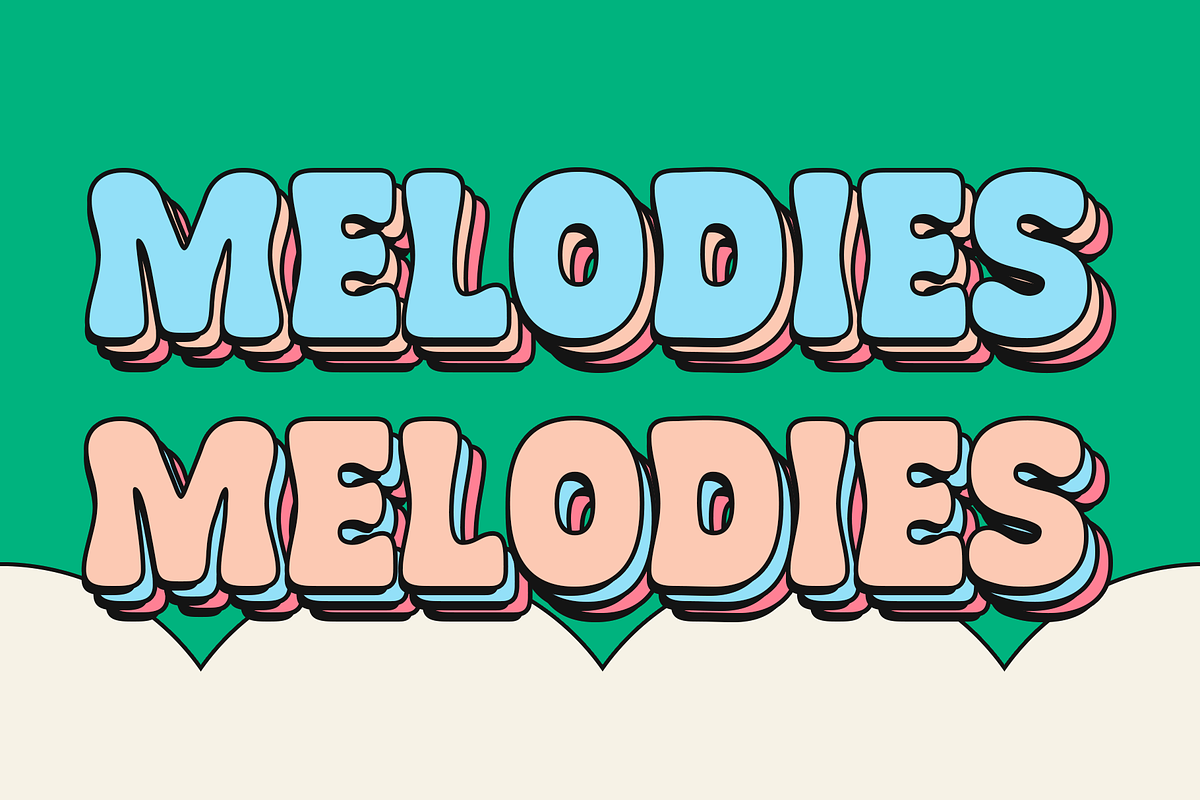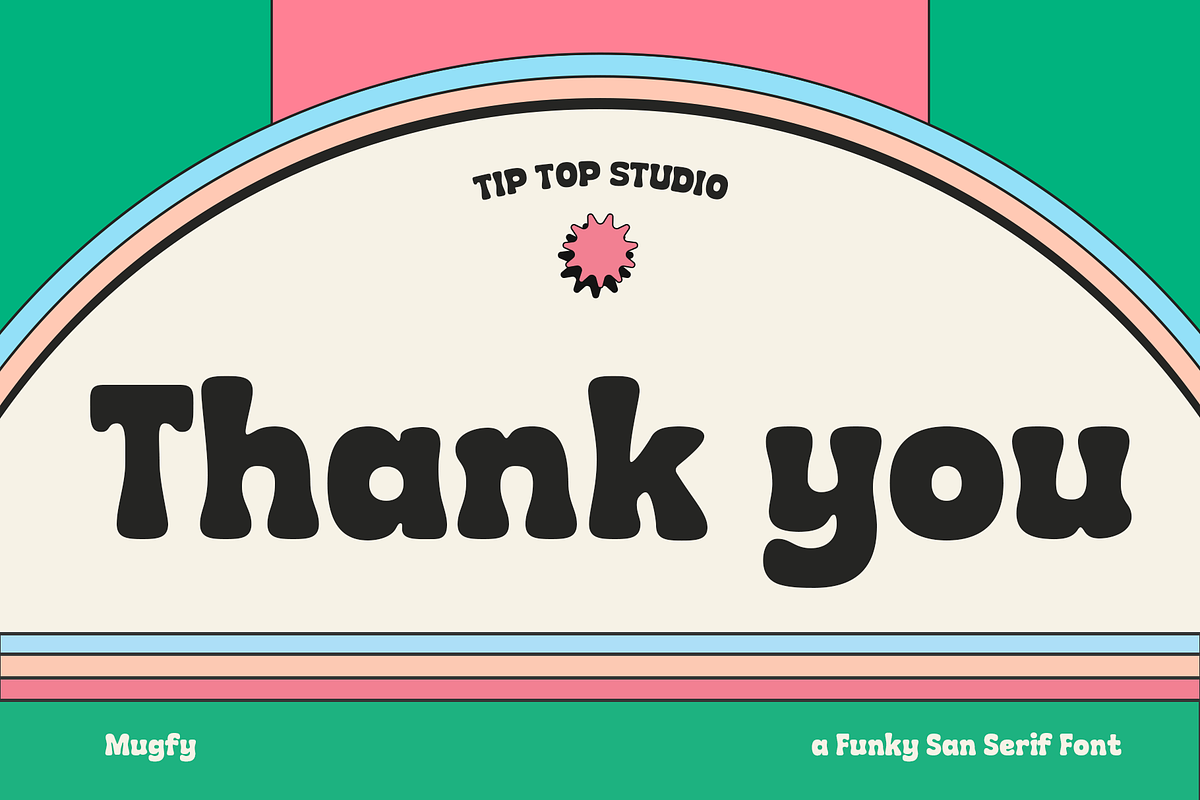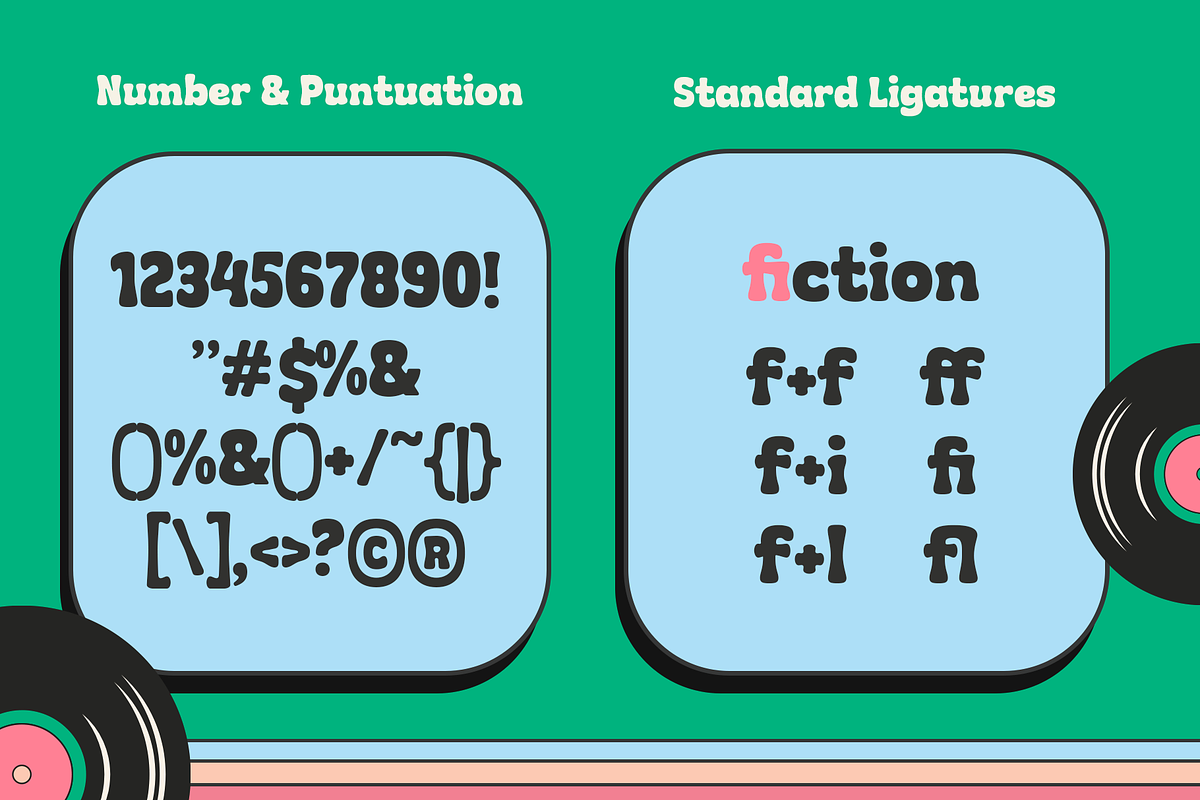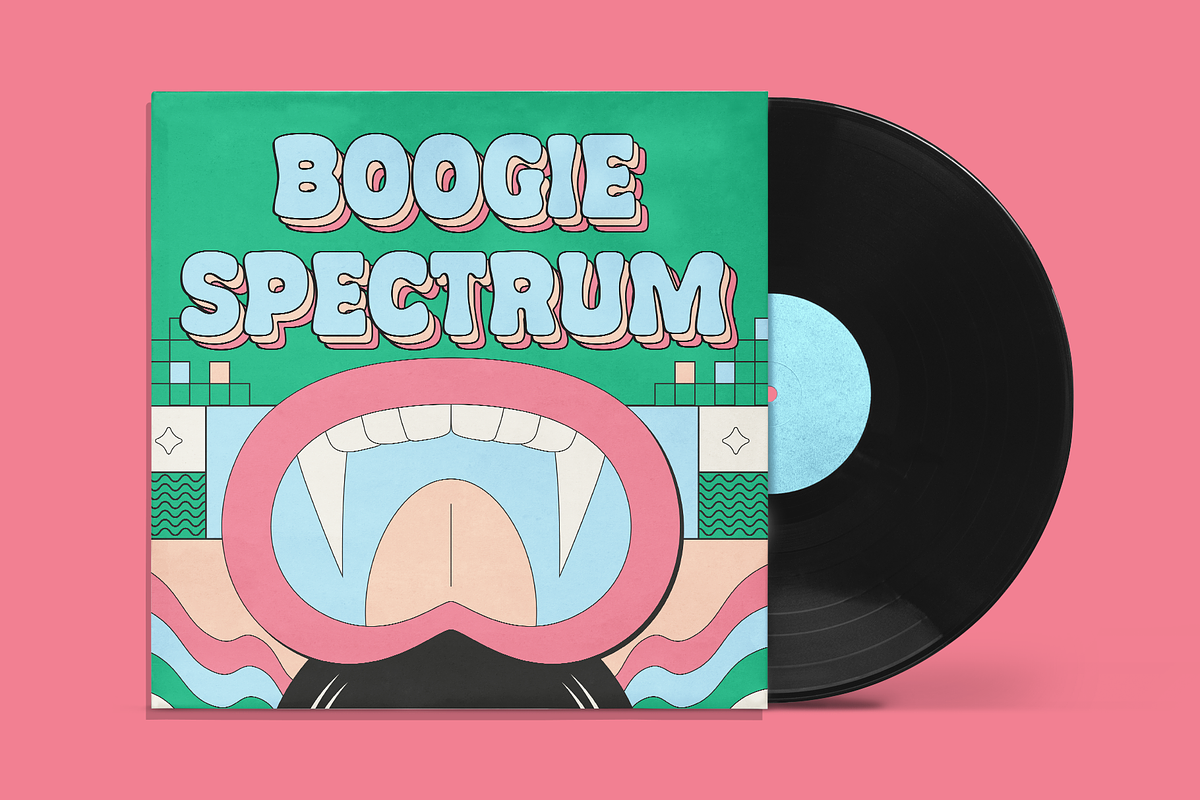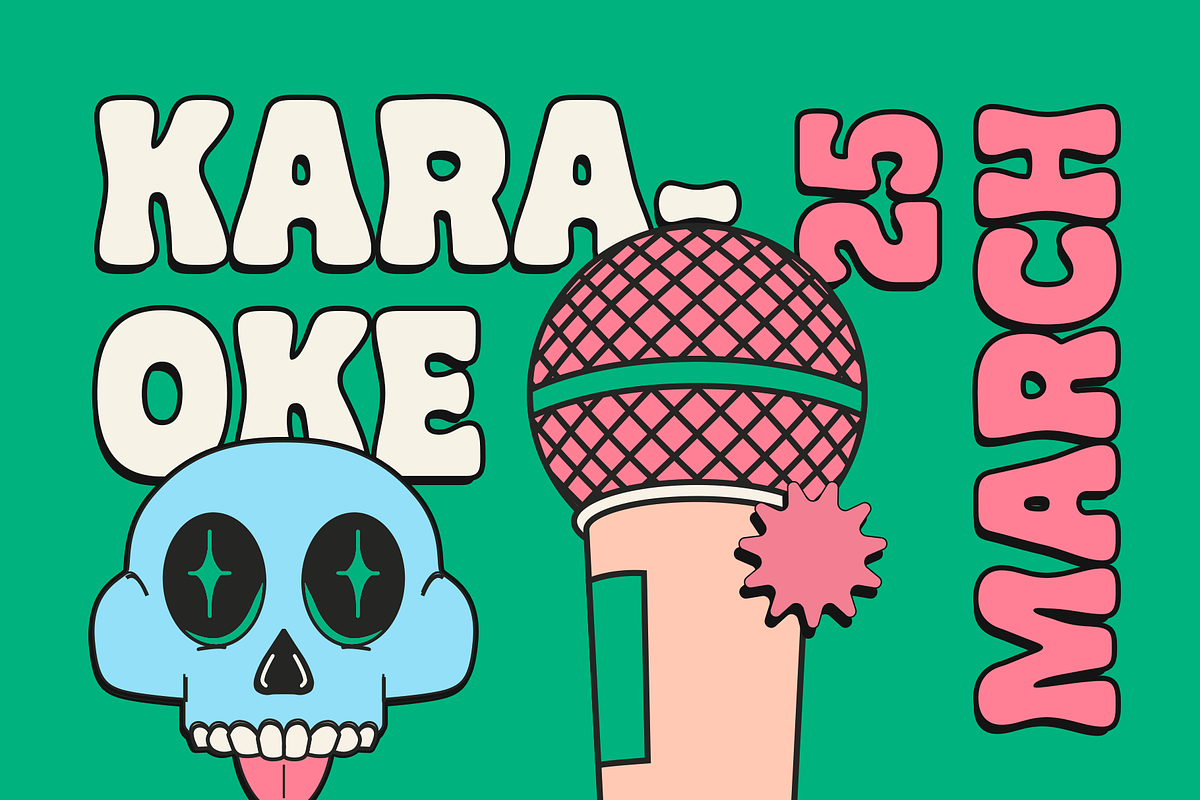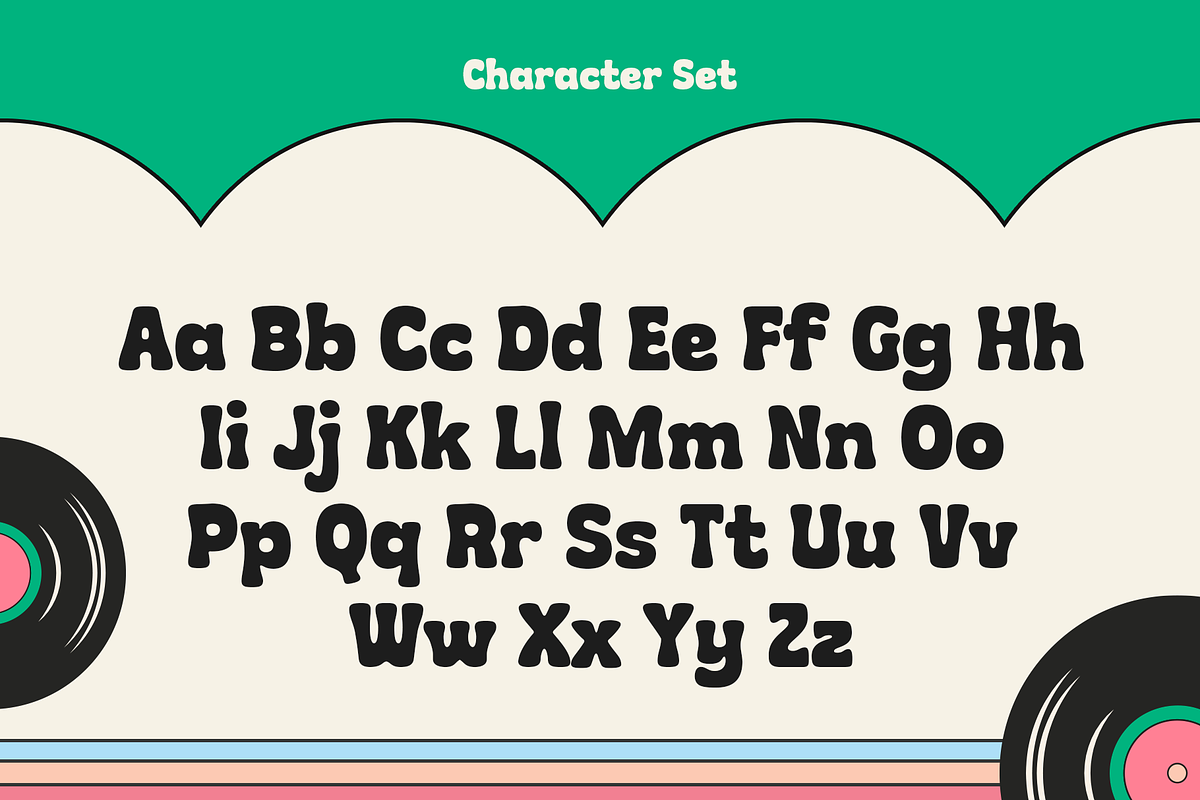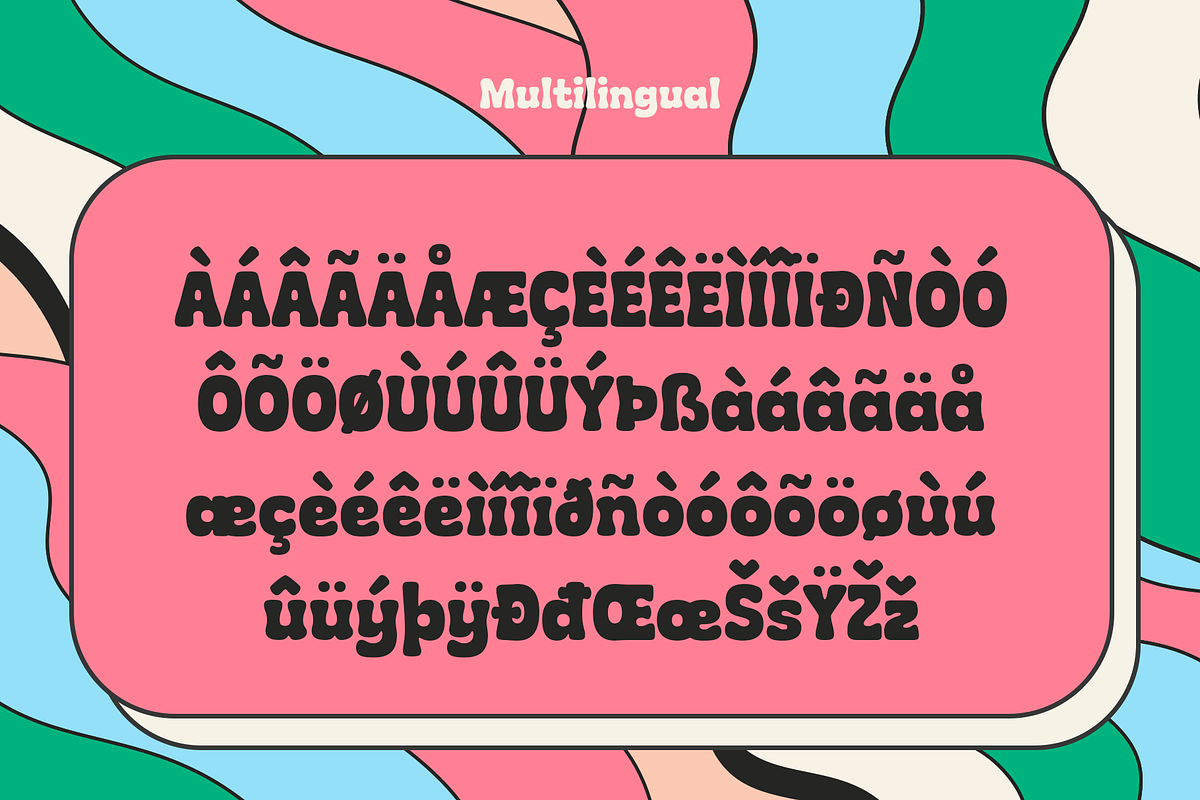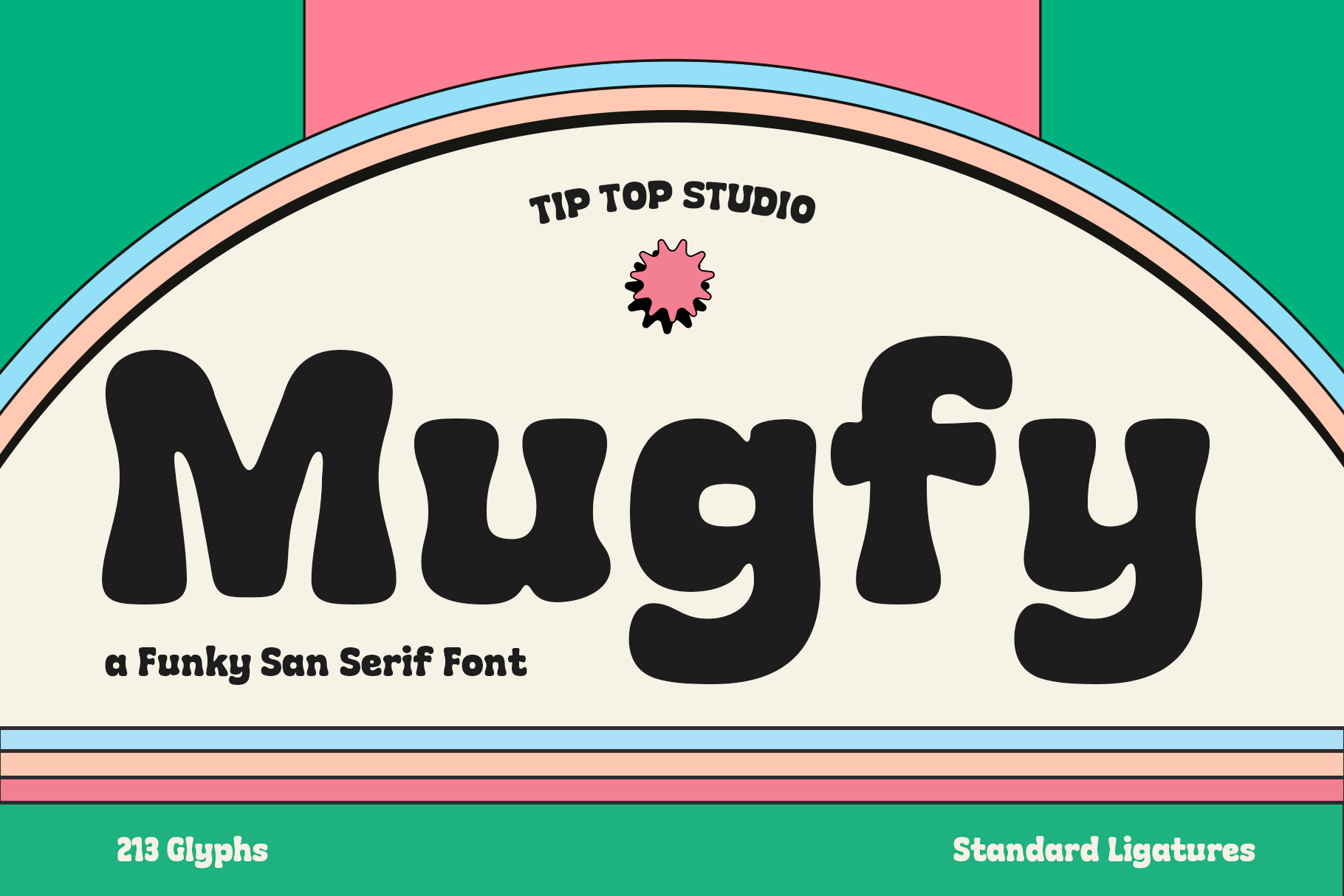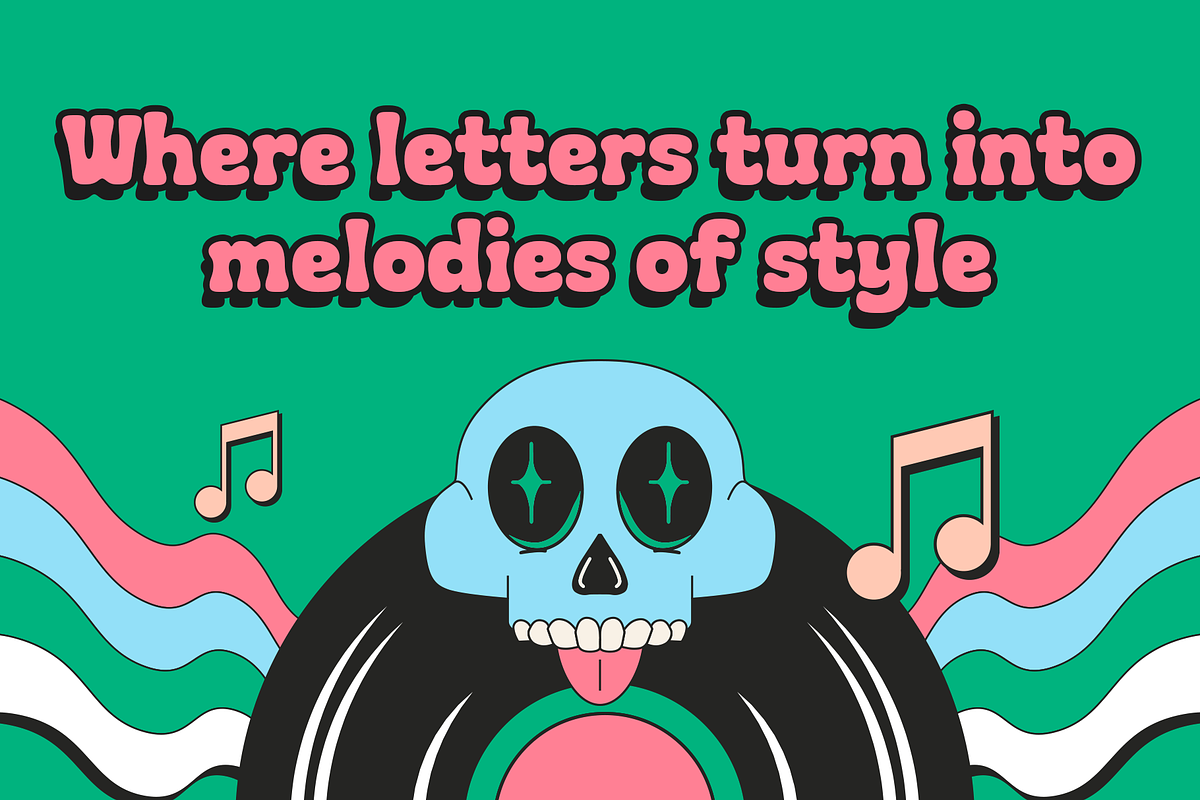
Mugfy – Wavy Squiggly Sans Font
Mugfy – Wavy Squiggly Sans Font is a playful and quirky typeface designed to bring fun energy into your projects. With its wavy, squiggly letterforms, this sans font adds a whimsical twist to any design, making it perfect for posters, greeting cards, invitations, branding, and creative digital projects.
Its irregular flow and hand-drawn charm give Mugfy a lively personality, ideal for anyone who wants to stand out with a bold yet lighthearted look. Whether you’re crafting titles, playful logos, or eye-catching social media graphics, Mugfy delivers a squiggly spark of creativity.
Mugfy – Wavy Squiggly Sans Font features:
- Punctuation & Numbers